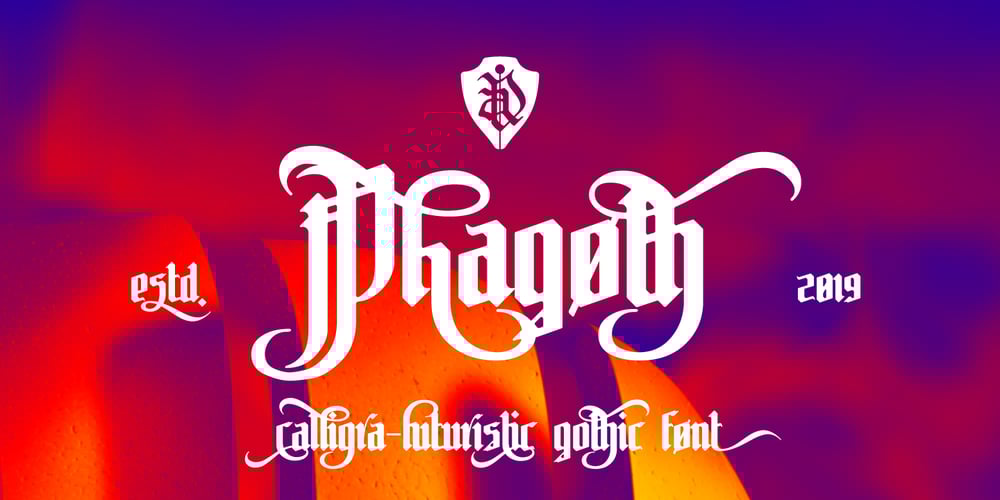
Phagoth Font Family was designed by Andriy Dykun and published by NREY. Phagoth contains 1 styles and family package options. Phagoth is calligra-futuristic gothic typeface. It is suitable for simple logo design, website headers, wedding invitations, fashion, menu designs and others. Good for vintage theme, tattoes etc. Follow my instagram: https://www.instagram.com/adnrey/ Thank you for purchasing and happy designing 🙂